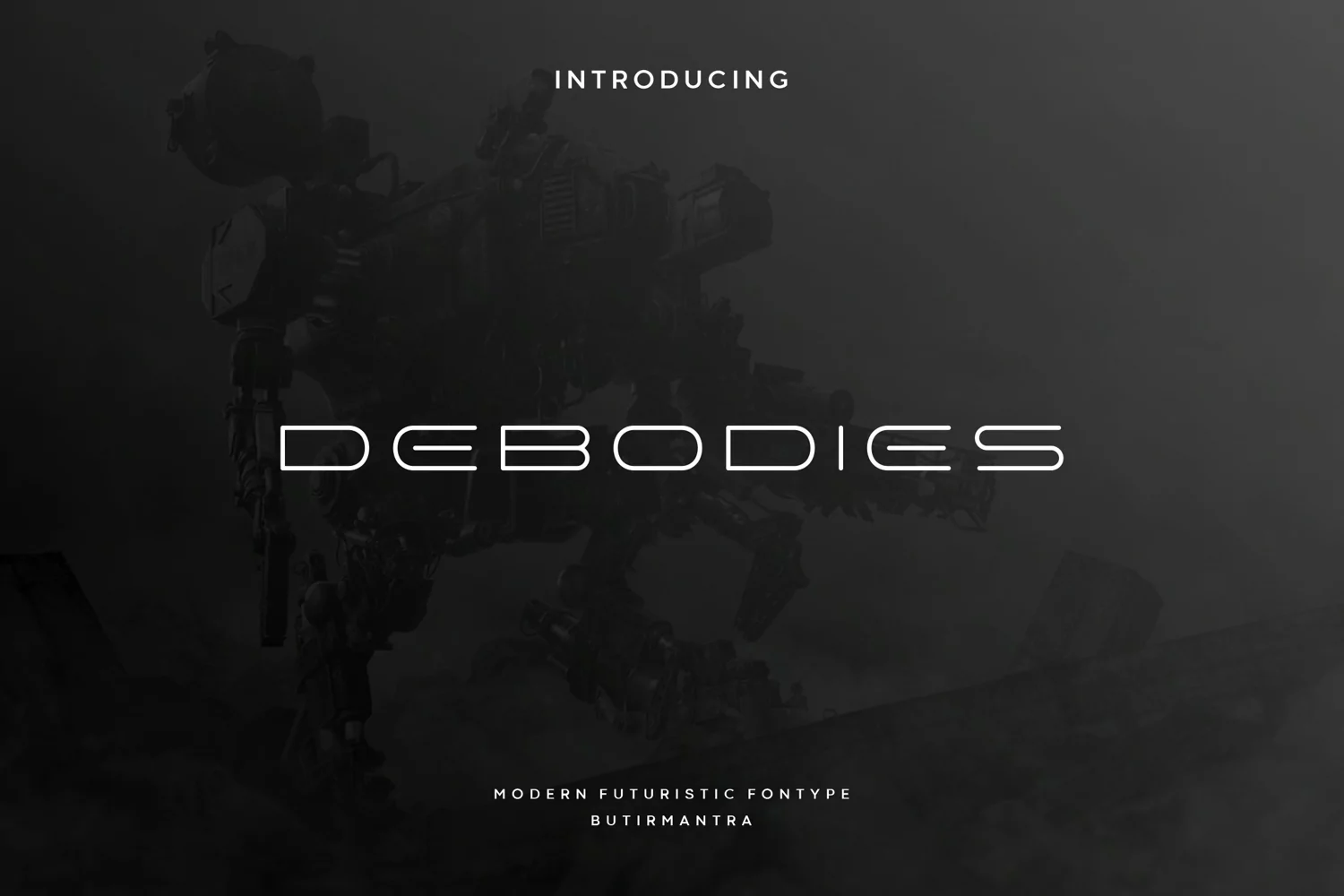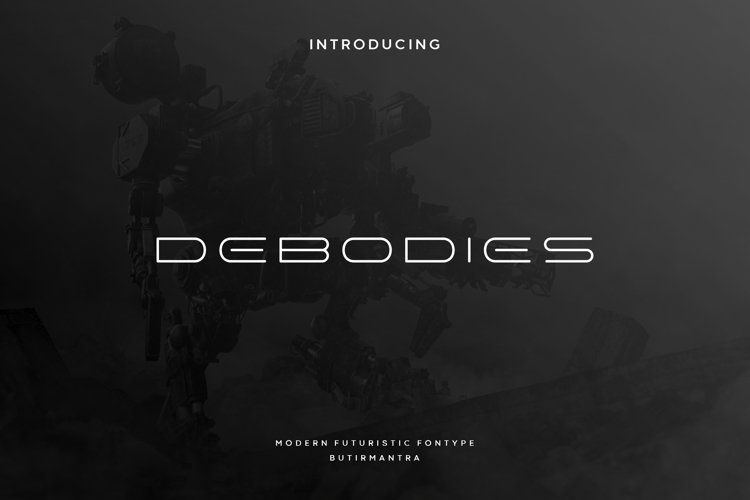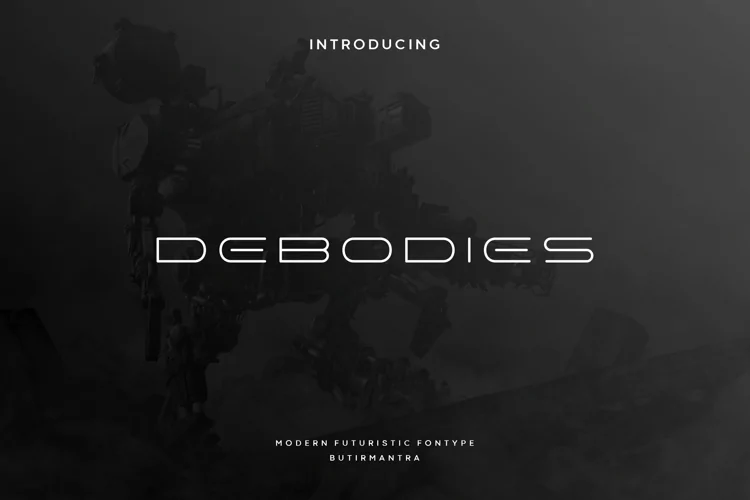
Debodies
Debodies is an all-caps display font designed by creative design, it also features some gentle curves that make it feel softer and friendlier. This font would be ideal for writing web designs, business cards, or pretty much anything else that requires a unique touch. Debodies creates for futuristic hi-tech atmosphere and style, it's good looking as header and as text both. Use it in your projects in such areas as robots & androids, hi-tech, future, virtual reality, space, sport and many others.